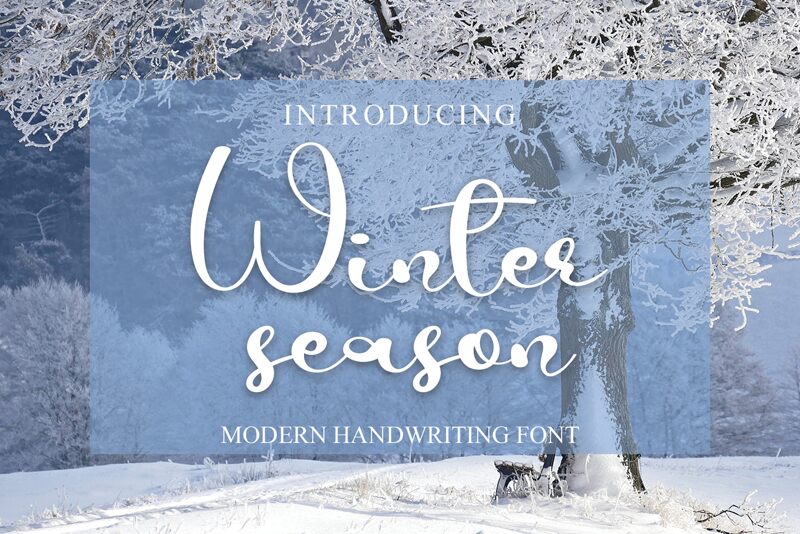
Winter Season
Winter Season is an enchanting handwritten font designed by Erik. Studio. This versatile script font has a wide spectrum of applications ranging from greeting cards to headlines and is guaranteed to add a romantic feel to your next project.